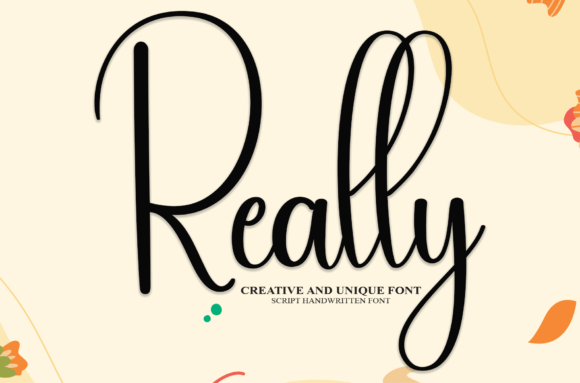
**Introducing Really Font: The Perfect Font for Your Wedding Proposal**
In the realm of everlasting love and heartfelt connections, no moment is more pivotal than the wedding proposal. It's a declaration of devotion, a promise of forever, and a testament to the unbreakable bond you share. To capture the essence of this extraordinary occasion, we present Really Font - a script font that embodies elegance, romance, and the timeless beauty of true love.
Crafted by the visionary font artist, William Jhordy, Really Font is a symphony of graceful lines, whimsical curves, and delicate flourishes. Each letter dances across the page like a whisper of sheer elegance, evoking a sense of enchantment and wonder. As the ink flows from your pen or the pixels dance on your screen, Really Font transforms your words into an exquisite masterpiece, worthy of the love you wish to express.
**A Stroke of Brilliance for Your Wedding Invitations**
Imagine your wedding invitations adorned with the enchanting strokes of Really Font. The names of your beloved and you, entwined in a graceful embrace, set against a backdrop of swirling hearts and blooming flowers. Each invitation becomes a cherished keepsake, a tangible symbol of the love and joy you share.
With Really Font, your wedding invitations transcend mere words; they become a reflection of your unique love story. The delicate curves of the letters mirror the softness of your embrace, while the playful flourishes capture the joy and anticipation of your journey together.
**Cards and Designs That Radiate Love**
The versatility of Really Font extends beyond wedding invitations. Use it to create heartfelt cards for anniversaries, birthdays, or simply to express your love and appreciation. Each card adorned with Really Font becomes a tangible expression of your emotions, a reminder of the unbreakable bond you share.
Incorporate Really Font into your designs, whether they be posters, flyers, or social media graphics. Let the font's charm captivate your audience, drawing them into your world of love and happiness. With Really Font, every design becomes a celebration of life, love, and the pursuit of happiness.
**Capture the Magic of Your Love Story**
Really Font is more than just a font; it's an artistic muse, a creative catalyst that ignites the imagination and fuels the heart. It's the perfect font to capture the magic of your love story, to immortalize the moments that define your journey together.